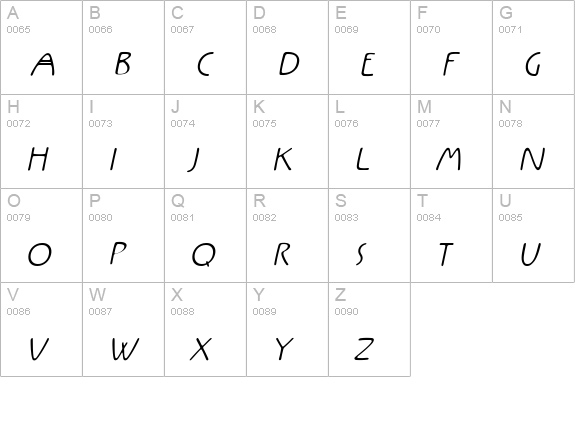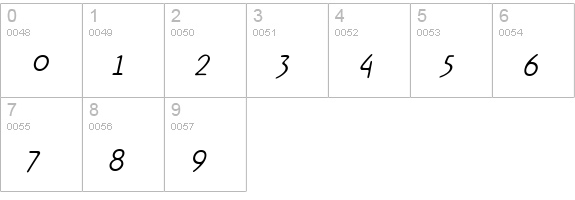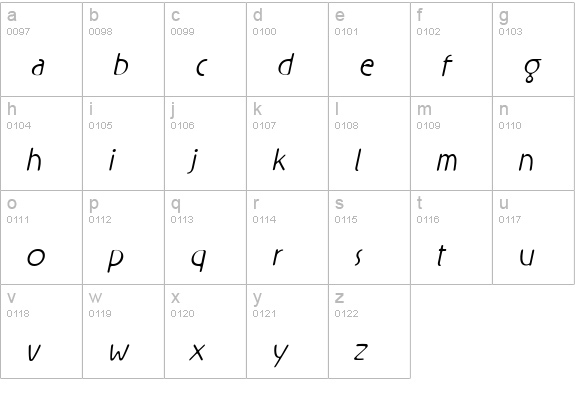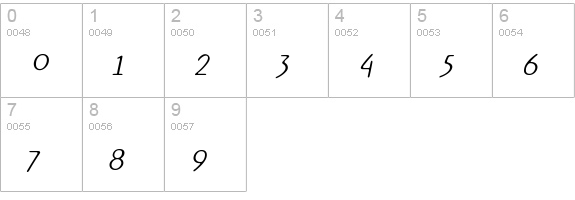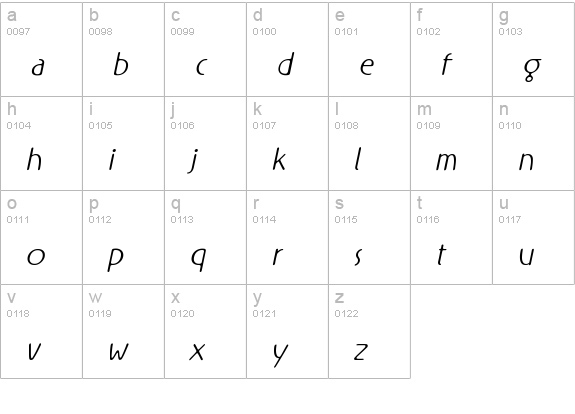
Rx-FiveFive Font Details
Rx-FiveFive is a modern and versatile font that exudes a sense of sophistication and professionalism. With its clean lines and sharp angles, this typeface is perfect for creating sleek and eye-catching designs. Whether you're working on a branding project, a website, or print materials, Rx-FiveFive will elevate your work to the next level. What sets Rx-FiveFive apart is not only its stunning aesthetic appeal but also the fact that it is completely free to use. Yes, that's right - you can download Rx-FiveFive for free at FontsMarket.com. This means you can add a touch of elegance to your projects without having to worry about breaking the bank. So why wait? Download Rx-FiveFive today and start creating stunning designs that will leave a lasting impression!